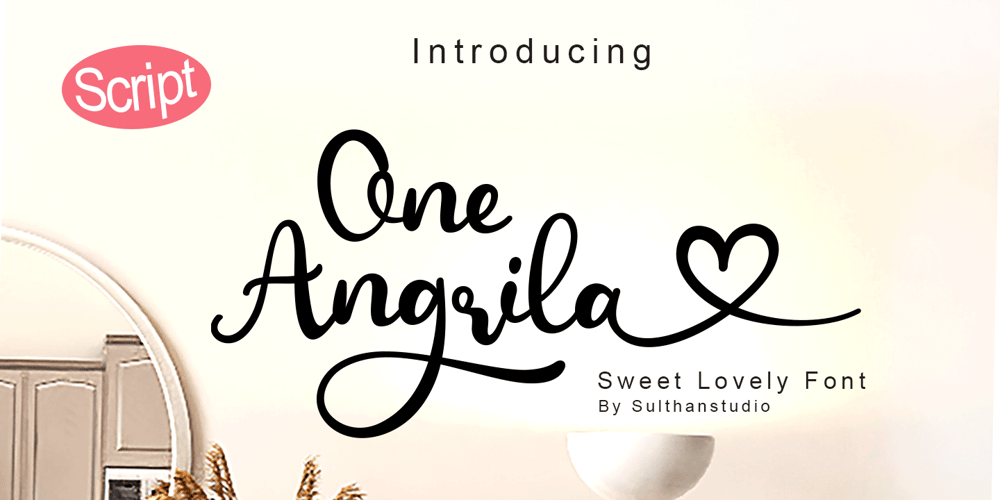
One angrila Font Family was designed by Nasrullah and published by Sulthan Studio. One angrila contains 1 styles and family package options. One angrilais a Lovely script font that is very charming and beautiful with its unique handwriting style. Equipped with 457 glyphs. One angrila is perfect for branding projects, stickers, crafts, cutting, handwork, homeware design, product packaging, use in business cards, invitation cards, etc. Simply as a stylish text overlay on a background image or anything that needs a little elegance.